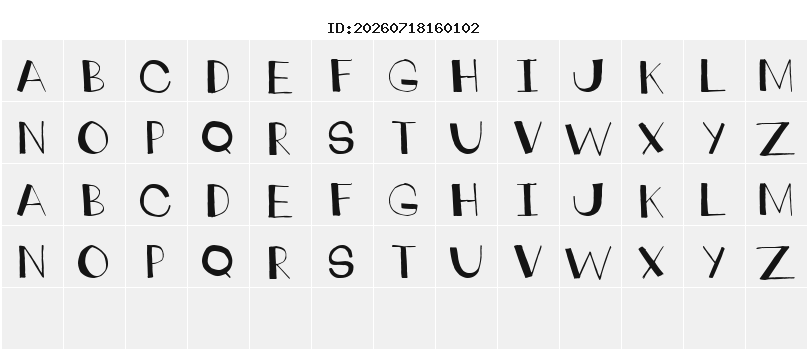
• Font Name: crankdeal
• Designer: andy greer and max infeld
• Description: bubbletea is fun
About crankdeal.ttf
crankdeal.ttf is a modern, elegant sans-serif font designed for ultimate readability and visual harmony. Perfect for branding, headlines, web design, and print materials.